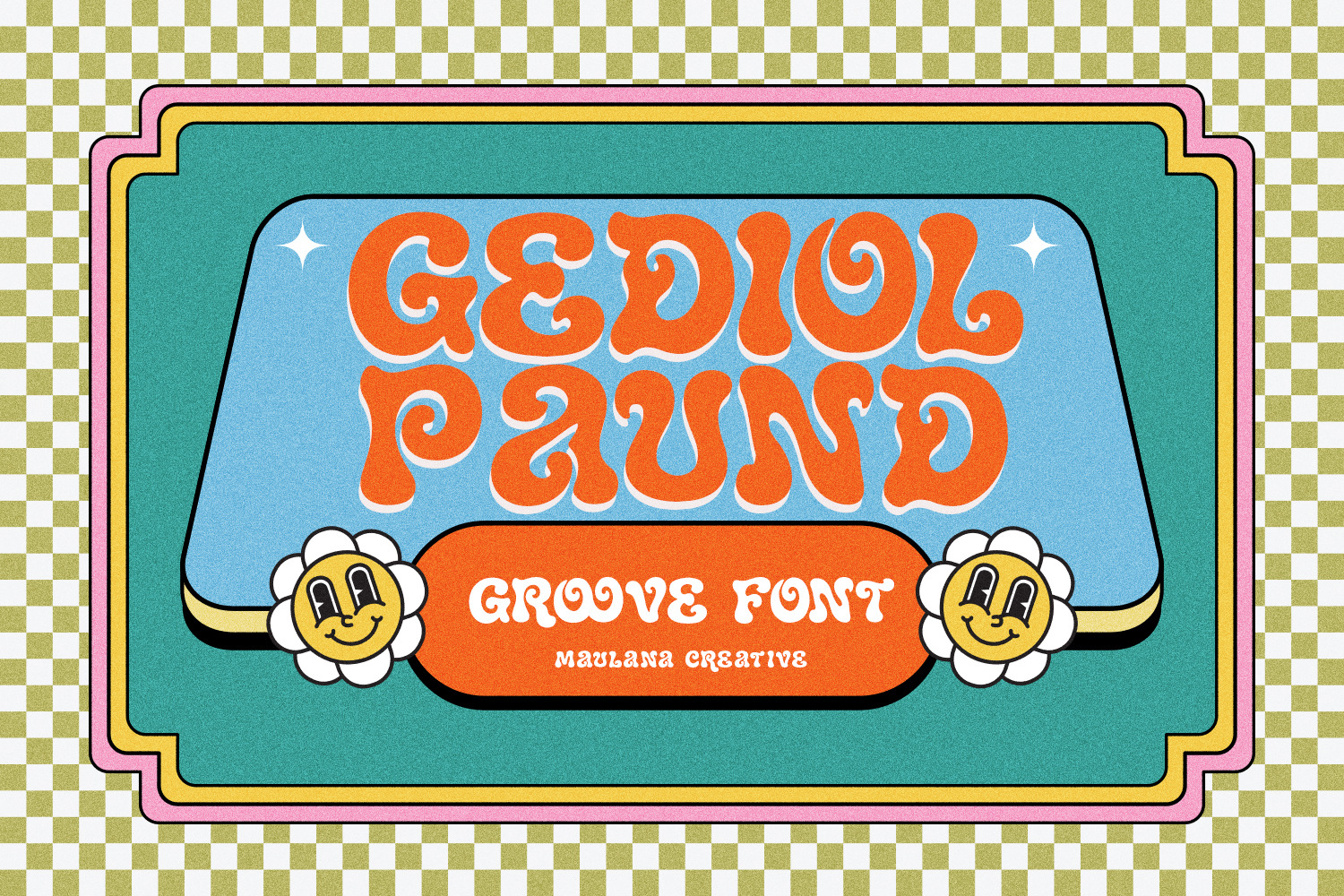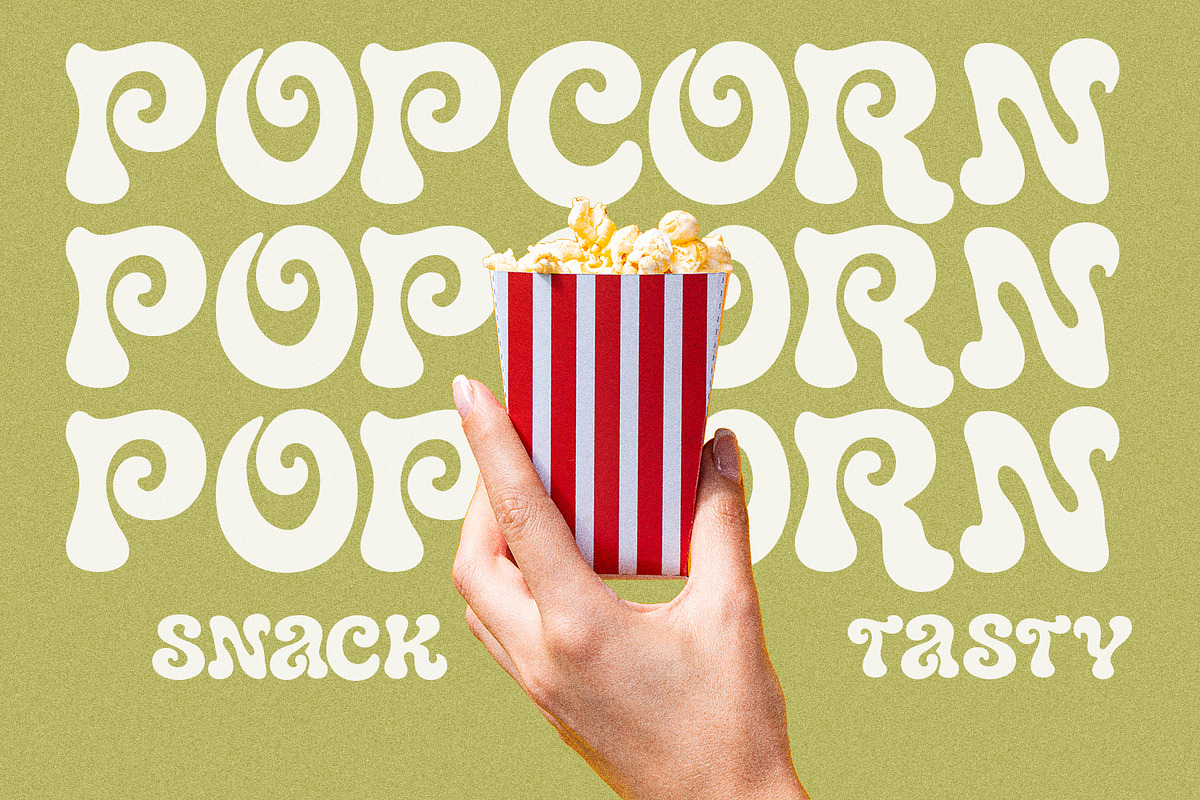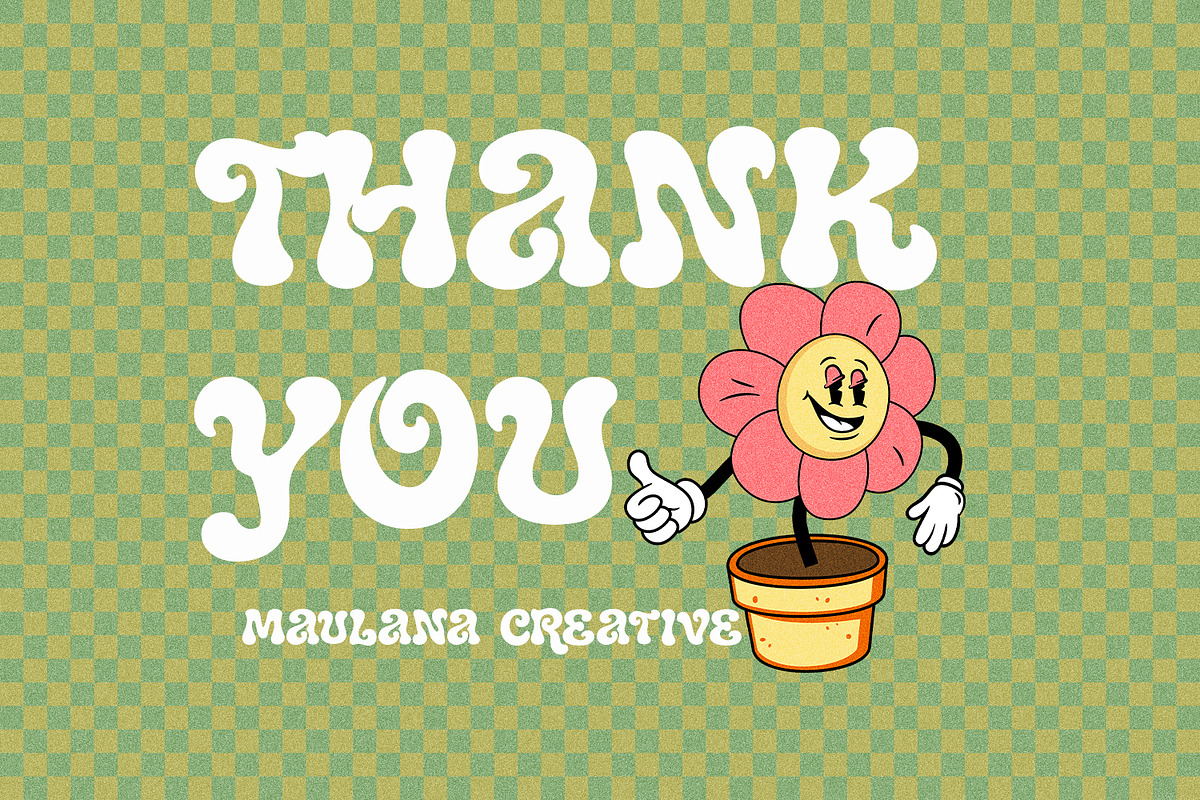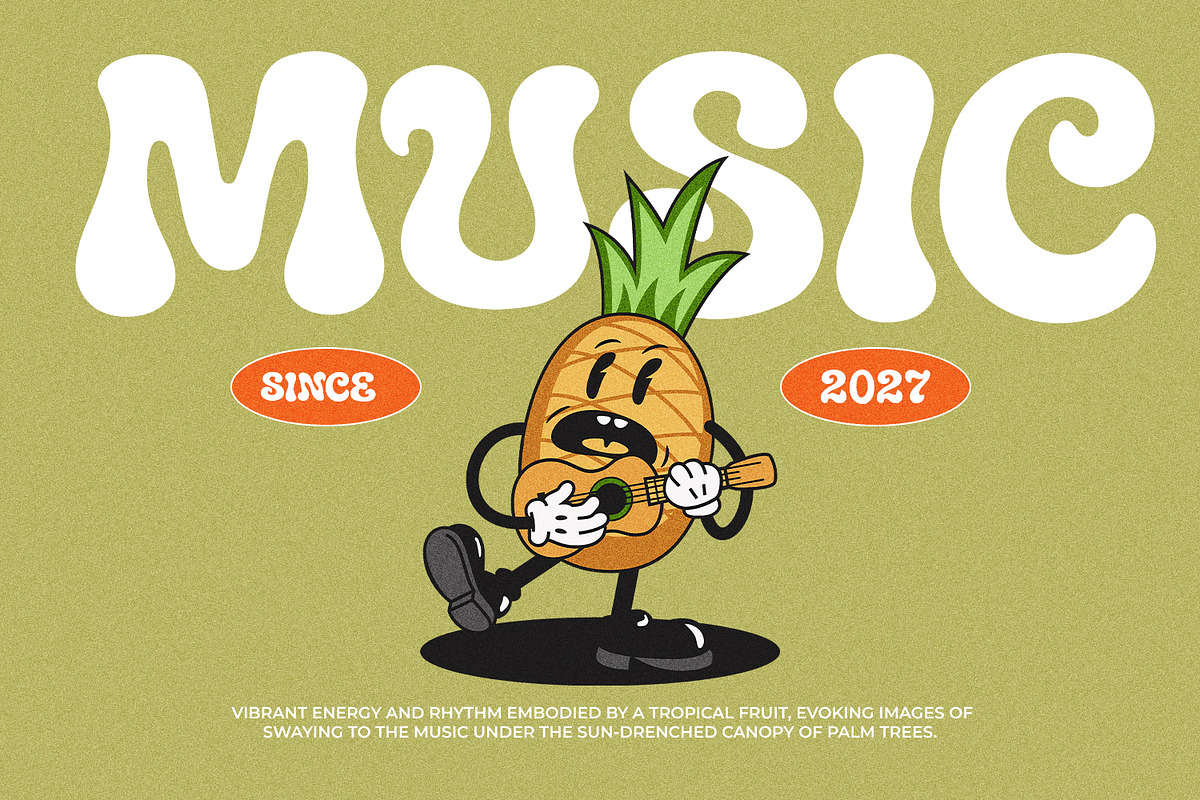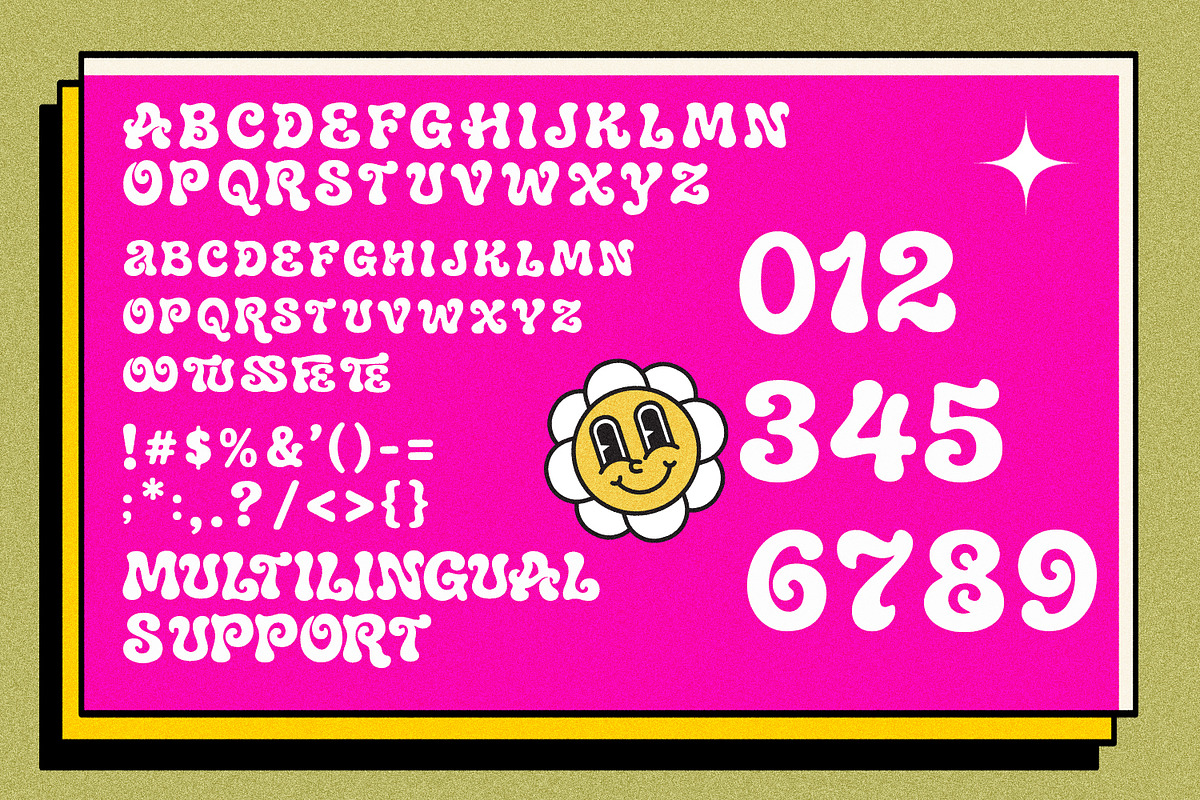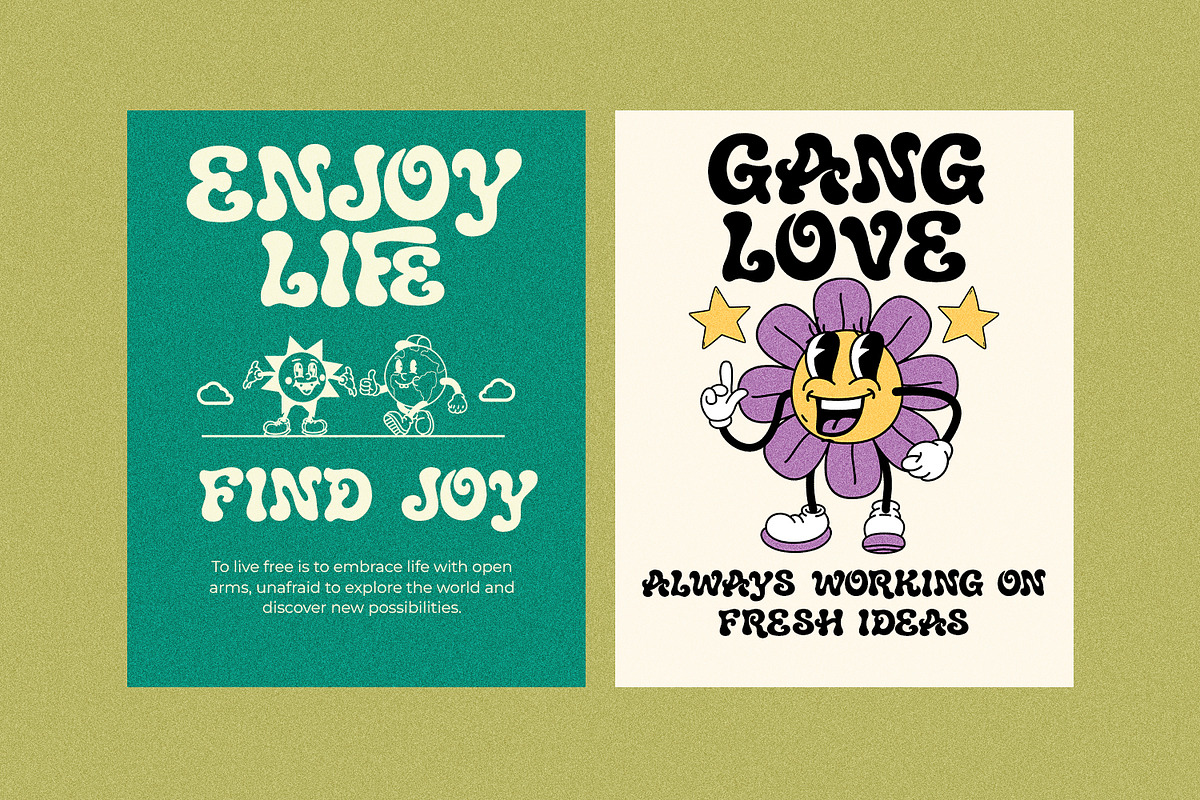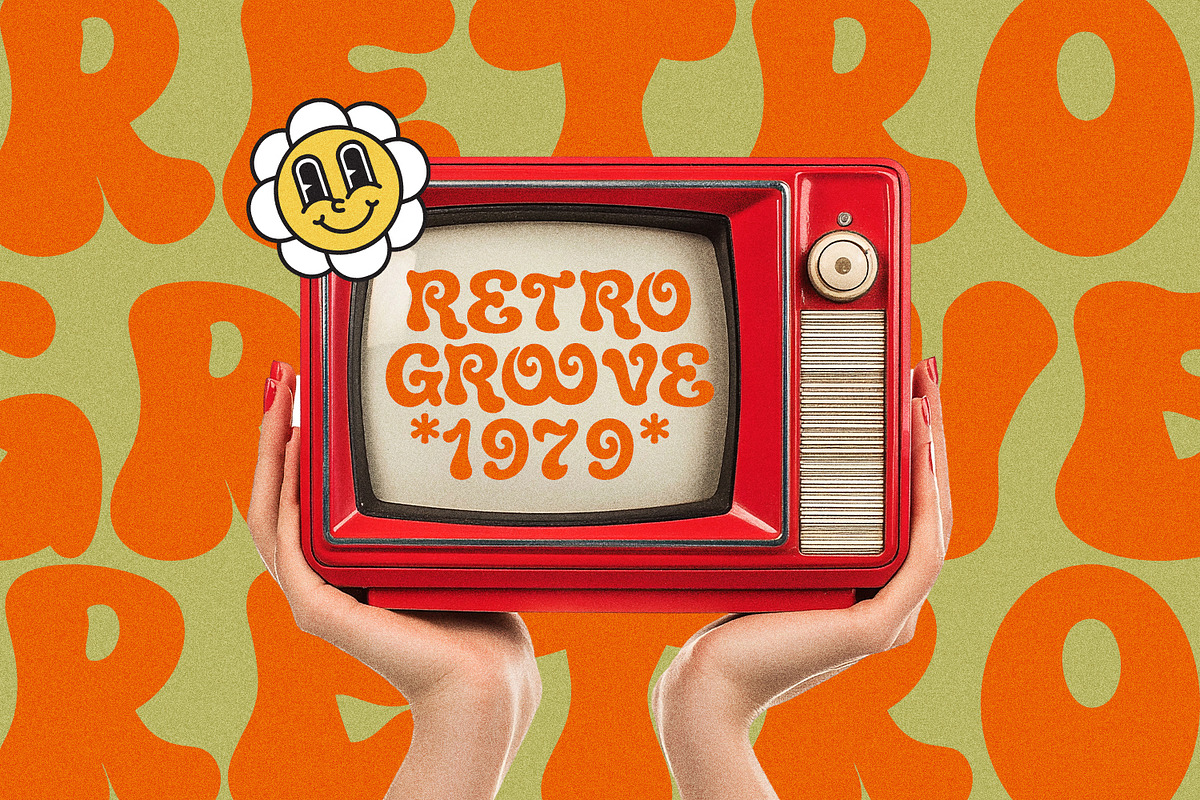
Gediol Paund Groovy Retro Font
Gediol Paund is a vibrant, bold display font deeply rooted in the iconic design aesthetics of the 1960s and 1970s. Characterized by its fluid, melting curves, playful swash details, and thick, pillowy letterforms, this typeface perfectly captures a joyful, psychedelic rhythm. It features a comprehensive set of uppercase and lowercase characters, numerals, punctuation, and extensive multilingual support. Whether applied to vintage-inspired digital graphics, bold branding, editorial layouts, or expressive poster designs, Gediol Paund brings an authentic, high-energy retro vibe to any creative project.
Numbers and punctuation
Ligatures and alternate for a natural handwriting flow